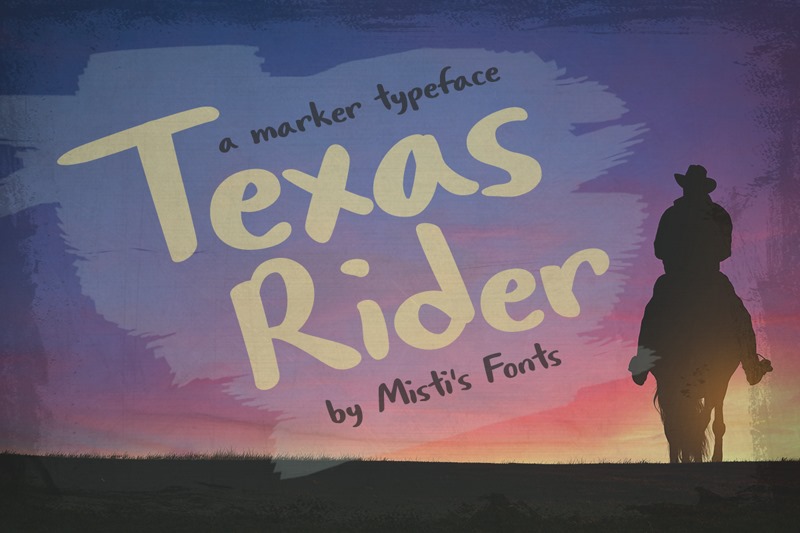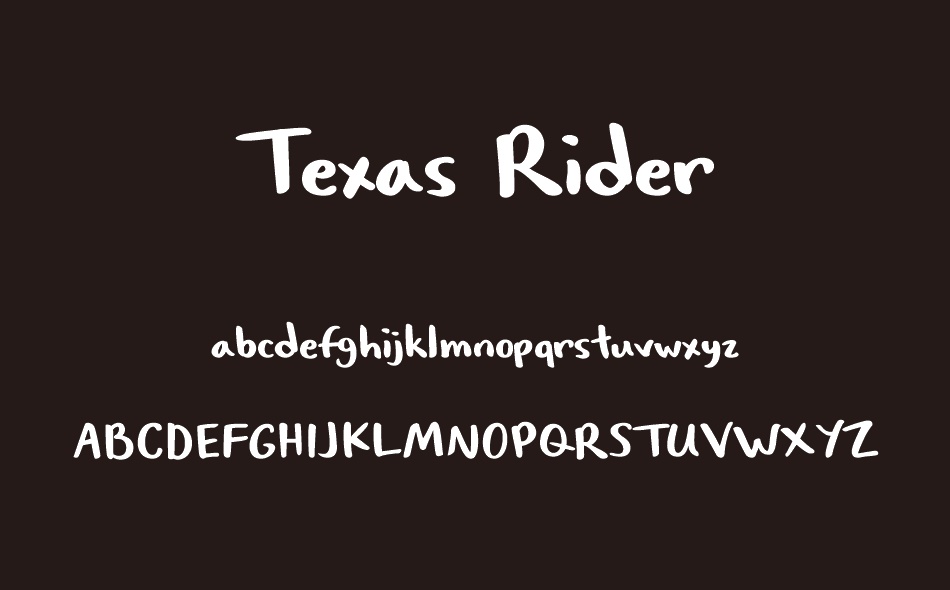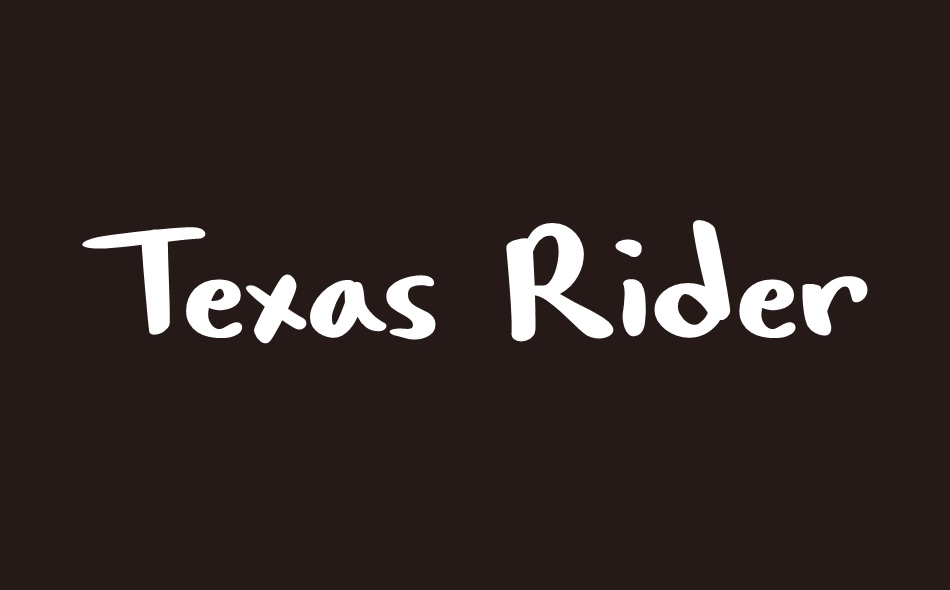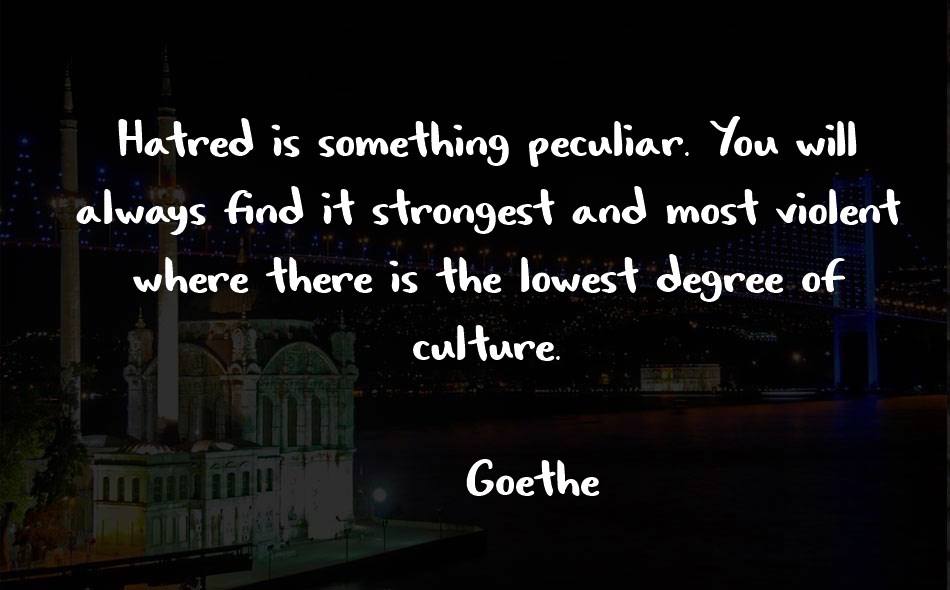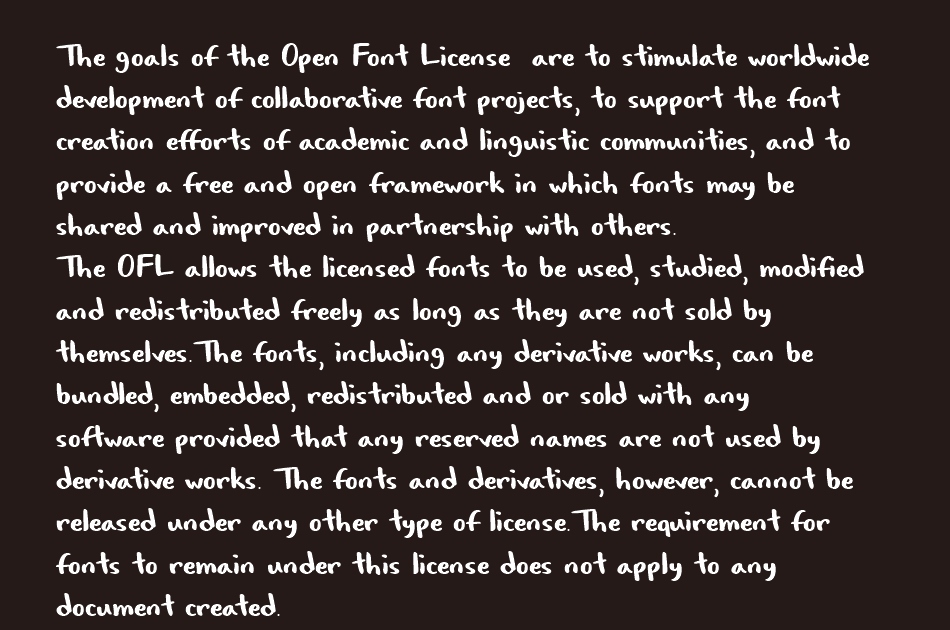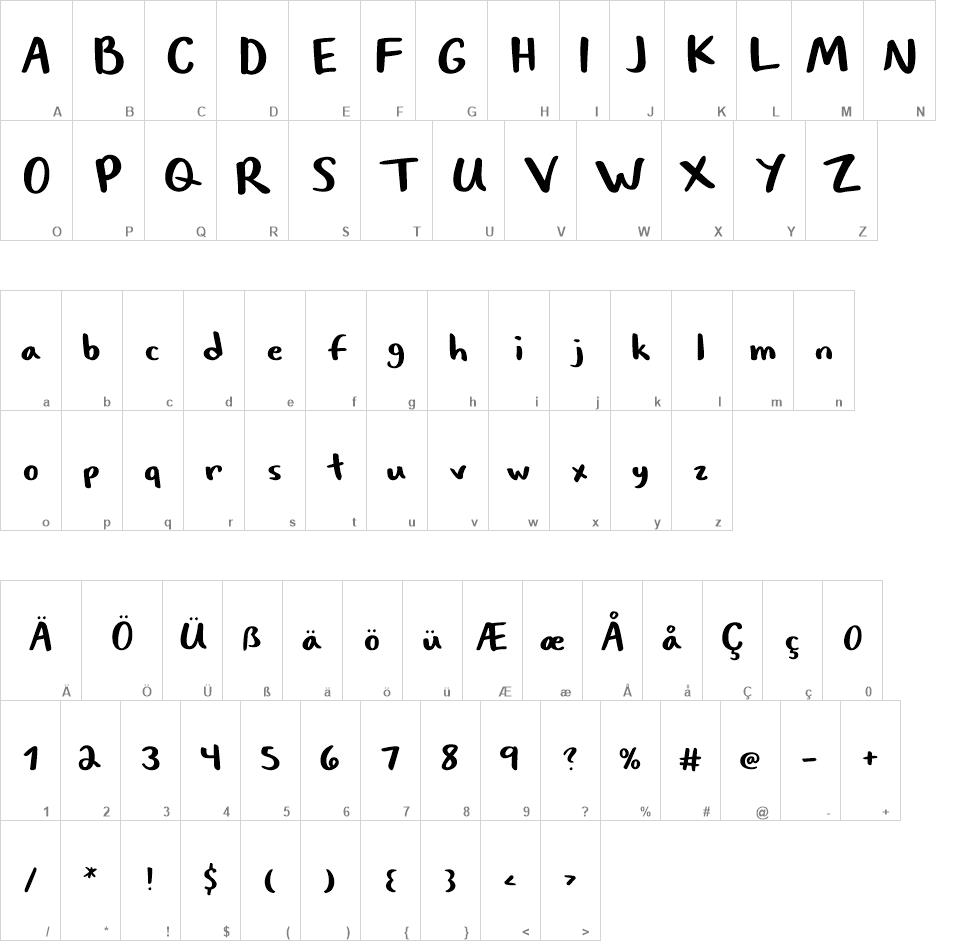
Texas Rider font
Introducing Texas Rider, a marker-style font that adds a touch of playful, hand-drawn charm to any project. With its irregular strokes and slightly slanted angles, this font captures the essence of free-spirited creativity. Perfect for posters, social media graphics, greeting cards, and DIY projects, this font is a must-have for anyone looking to infuse their design with a touch of personality. The characters are bold and easy to read, yet retain a casual, approachable vibe. Try it out and watch your designs come to life!